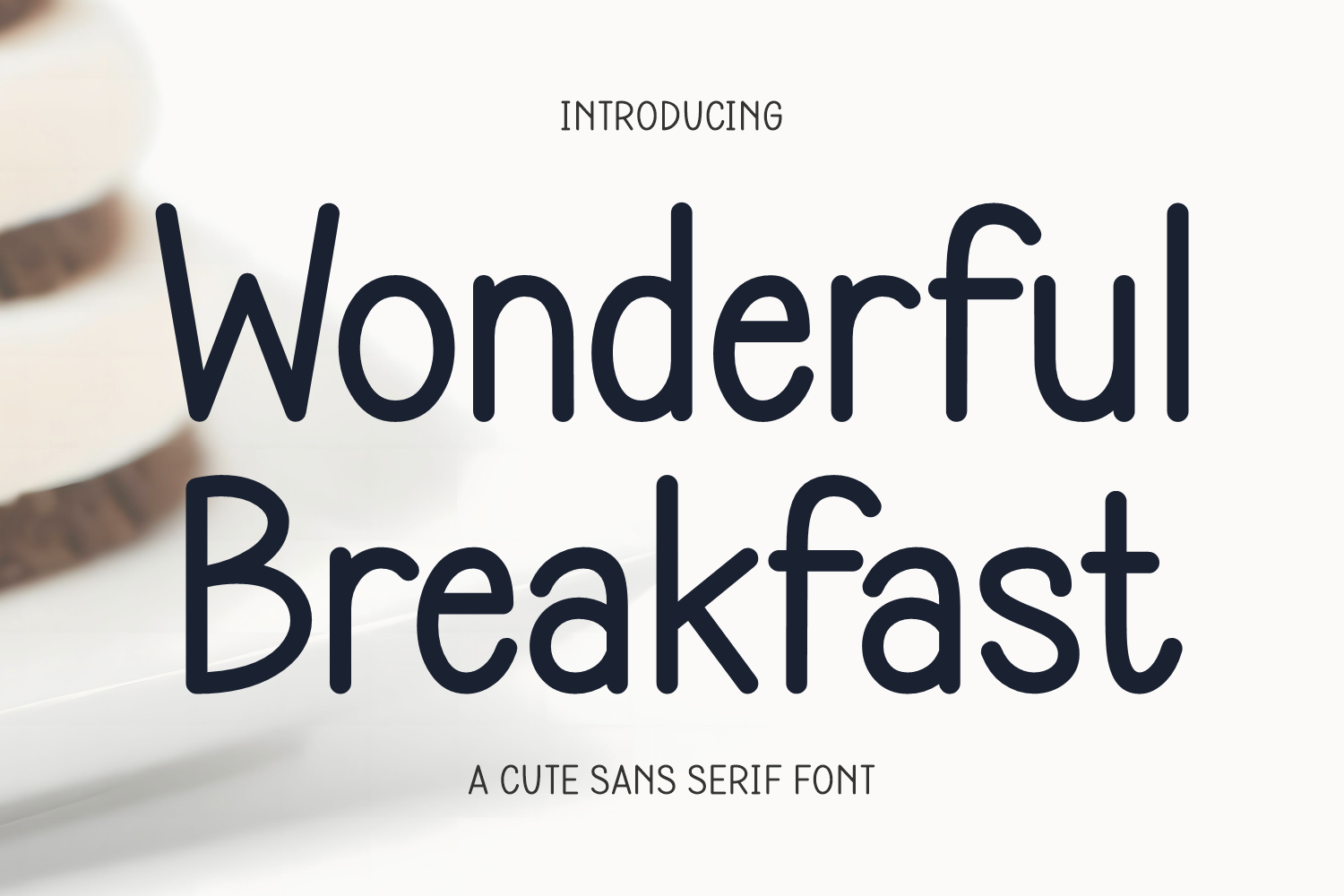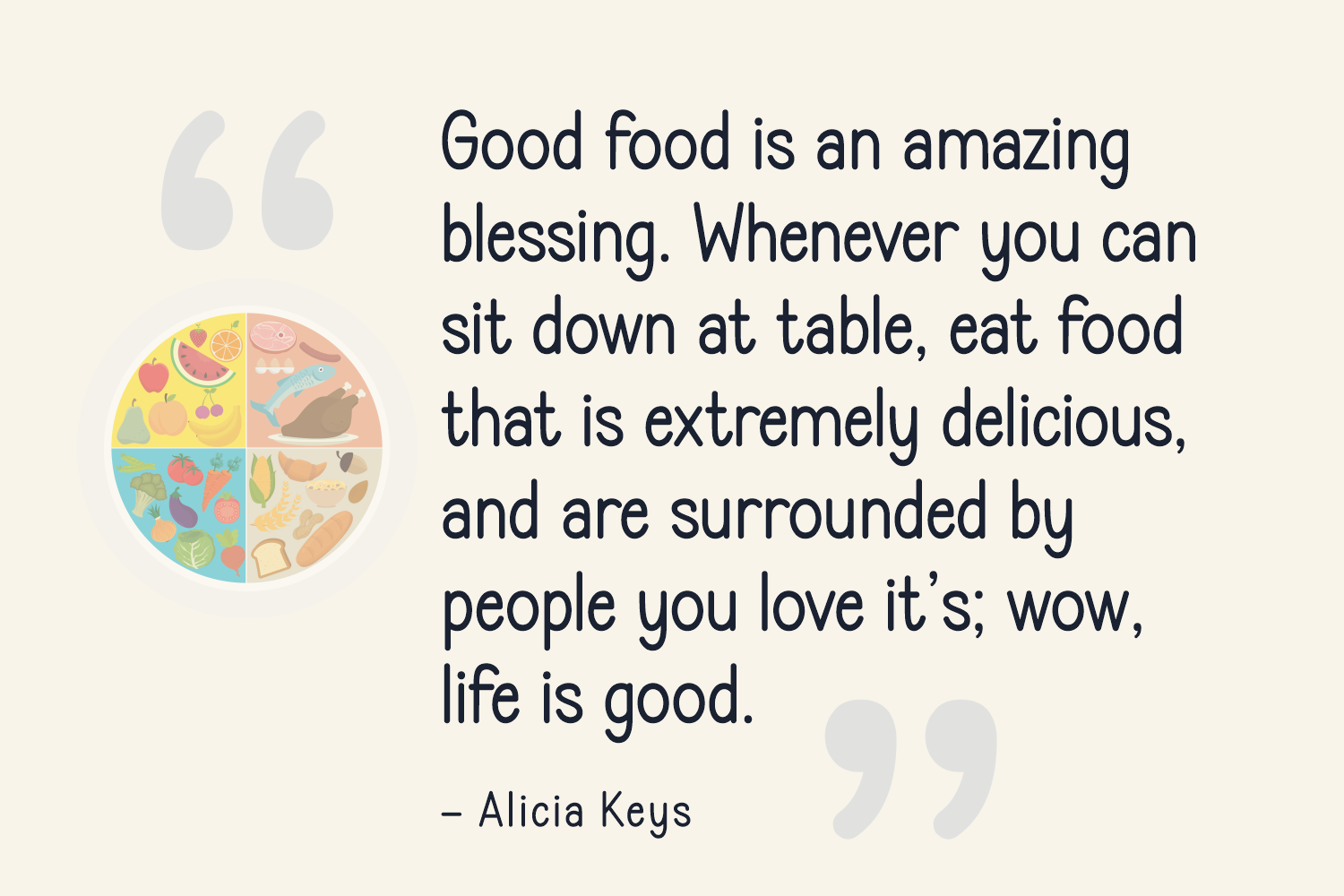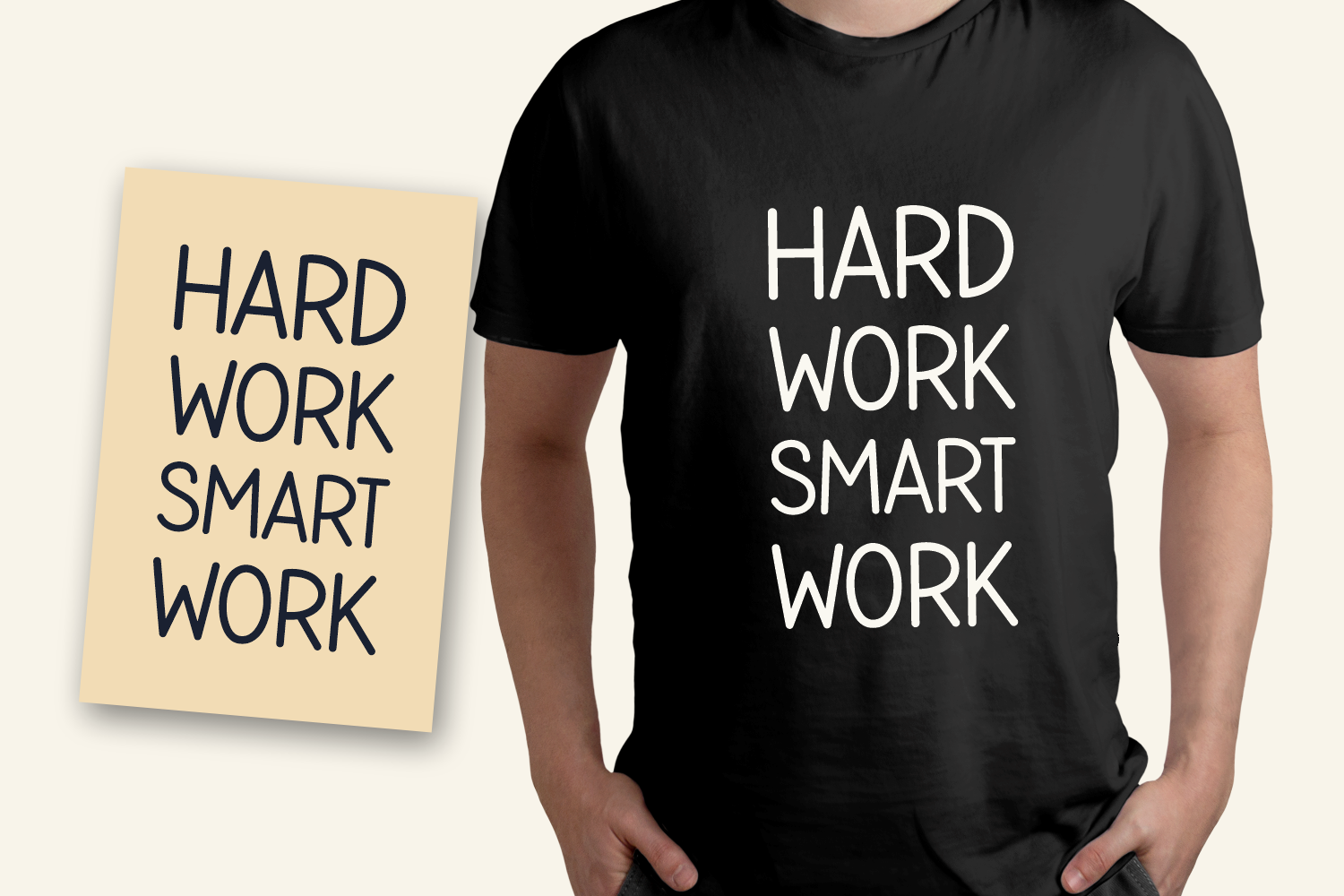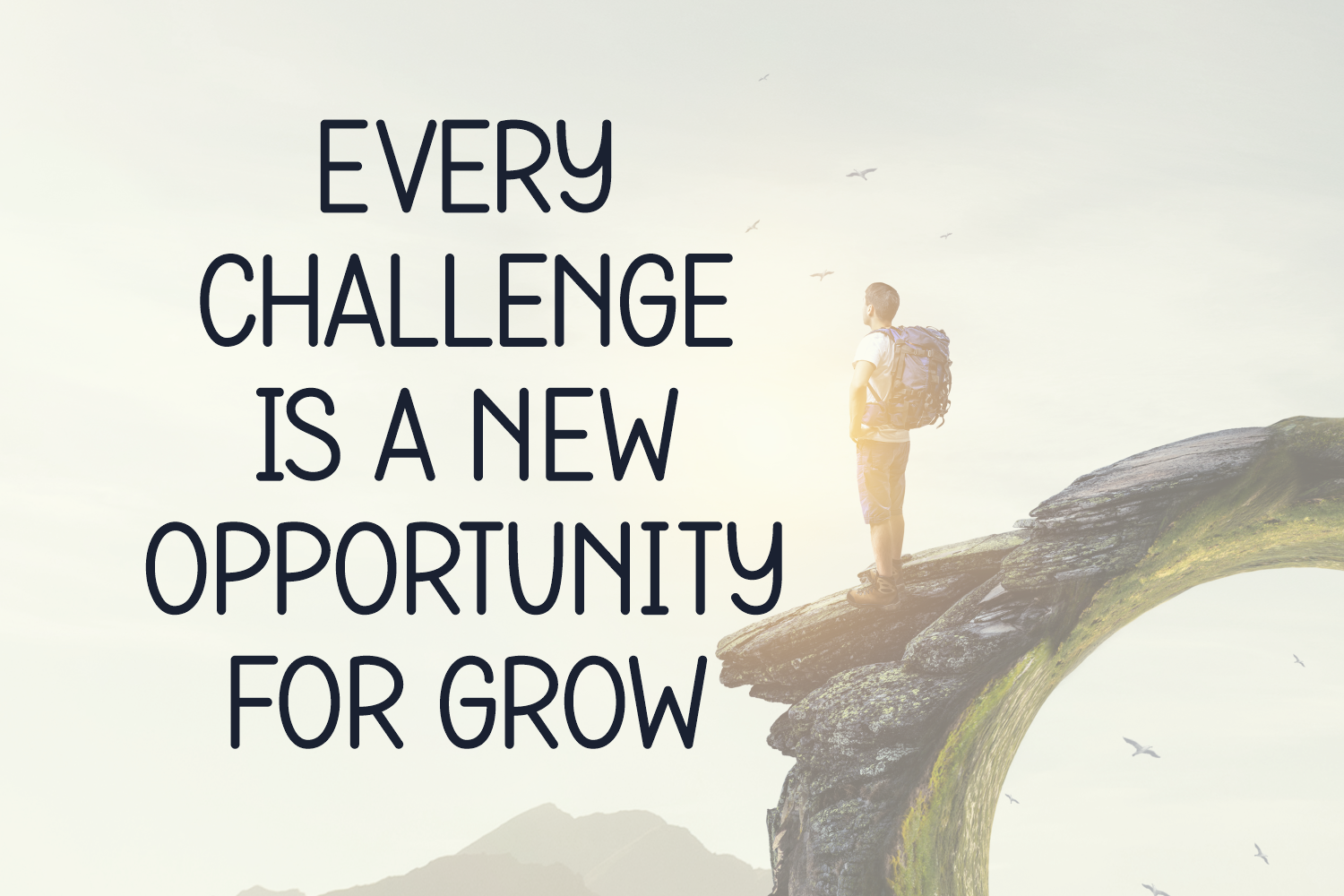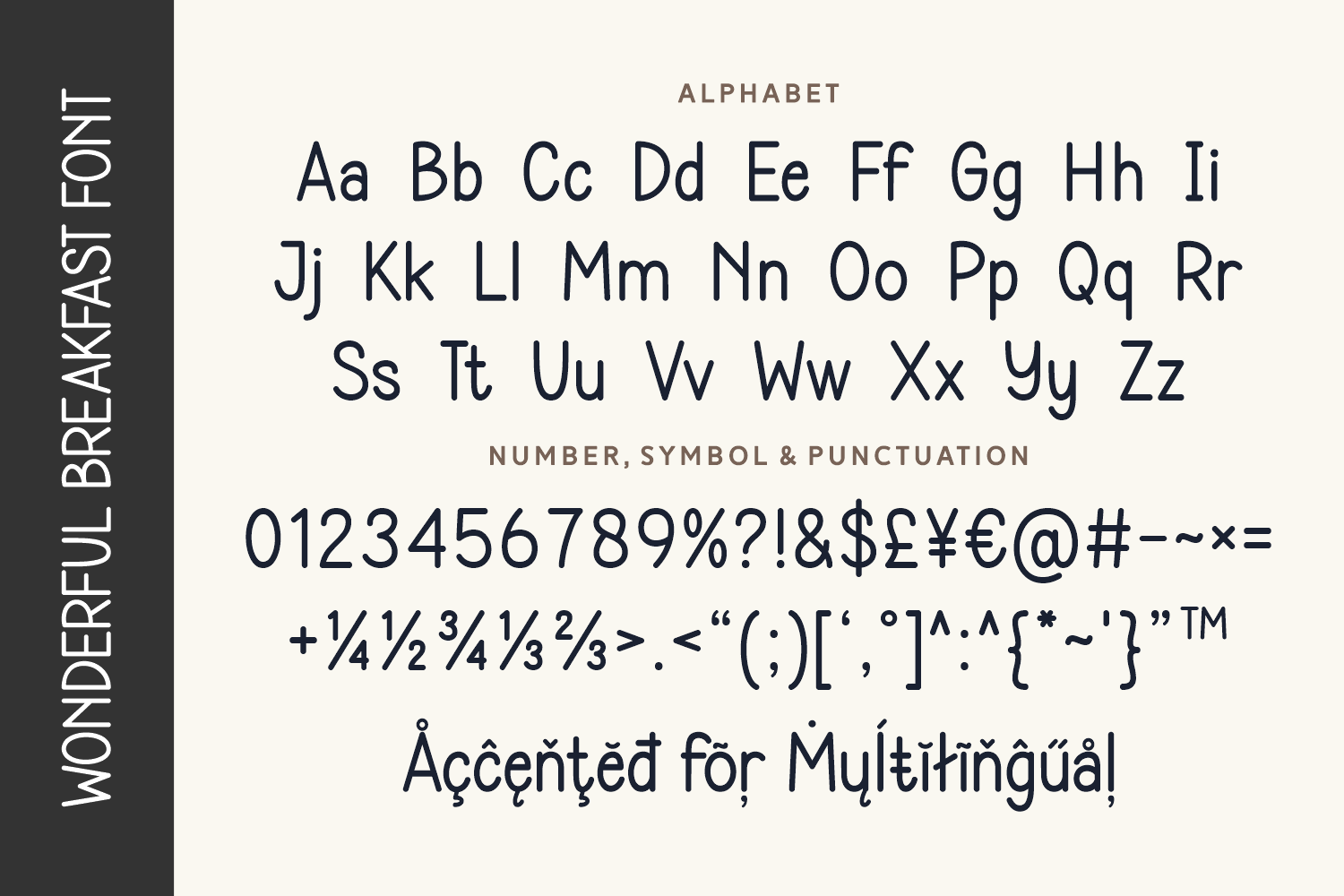
Wonderful Breakfast
Wonderful Breakfast is a cute sans serif typeface with rounded corners and a friendly handwritten feel. Ideal for food packaging, children’s designs, and playful branding, it adds charm and warmth to any project.